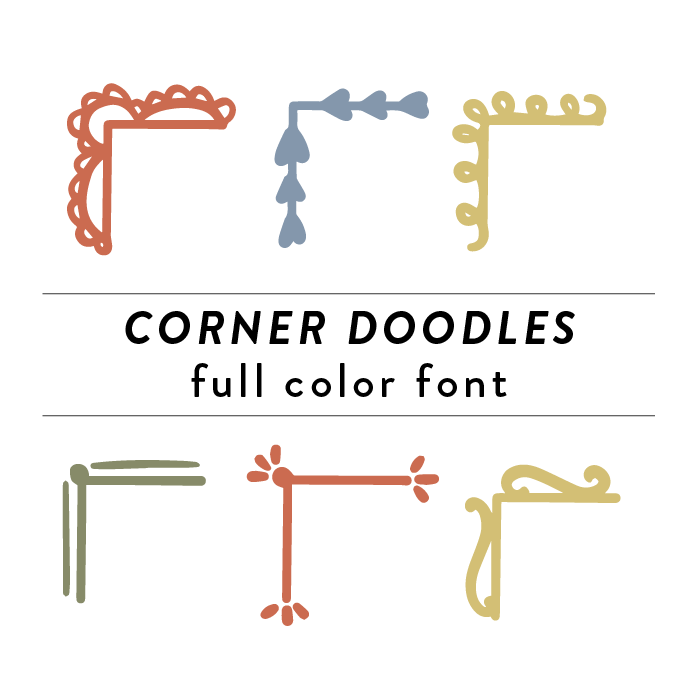
Corner Doodles Full Color Font is a whimsical and fun decorative font design featuring a combination of various shapes and doodles in vibrant colors. The design is perfect for adding a playful touch to any project, from invitations to scrapbook pages, to cards. Its unique style and variety of shapes make it stand out and add a pop of color to any design.